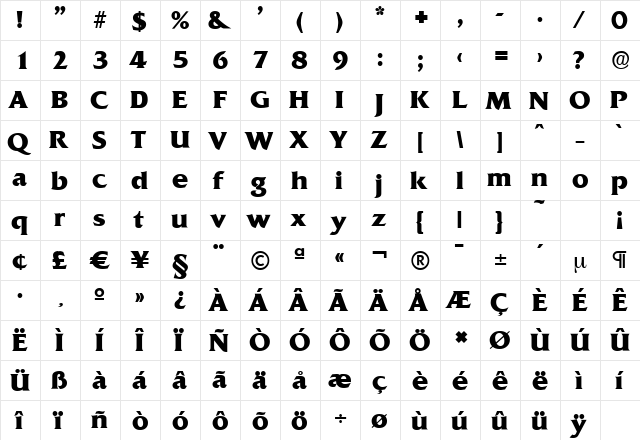
QuadratSerial-Xbold Regular
Design Context for QuadratSerial-Xbold Typeface
QuadratSerial-Xbold takes a measured approach to typography — its balanced proportions and neutral character make it a reliable workhorse for both digital and print work. The heavy weight commands attention and anchors typographic hierarchies.